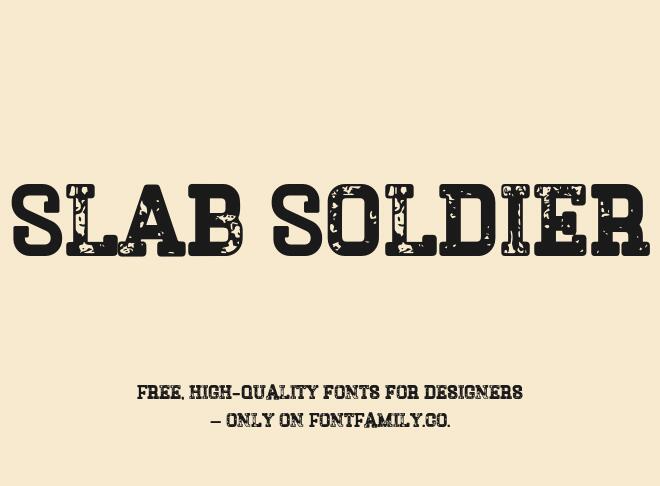
Slab Soldier Font
Slab Soldier Font is a bold, rustic display font with a unique character. It captures the essence of vintage typography while giving it a modern twist. The chunky serifs and strong lines make it a great choice for impactful headlines and standout texts. This font is reminiscent of the rugged style found in vintage posters and signage, making it an excellent choice for projects that need a touch of retro charm. Slab Soldier Font is versatile, adaptable, and easy to use, making it a go-to for designers. Its bold, commanding presence can instantly elevate any design project, from logos and branding to editorial design and web design. It's a free-to-download font under the Open Font License, making it accessible for both personal and commercial projects.